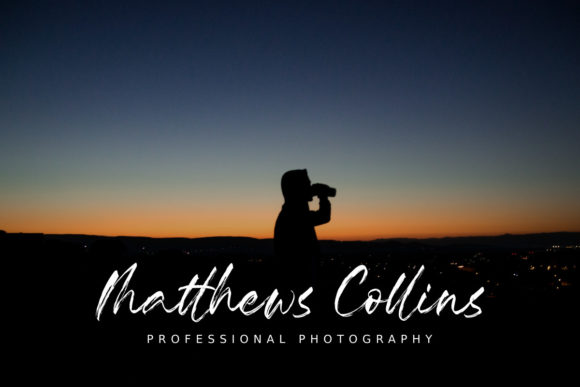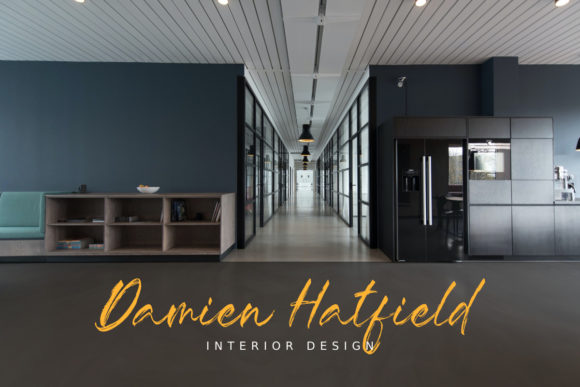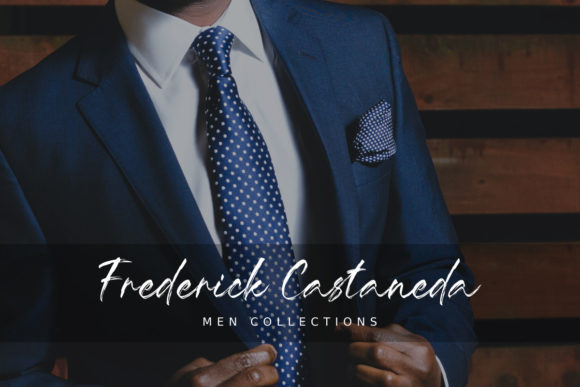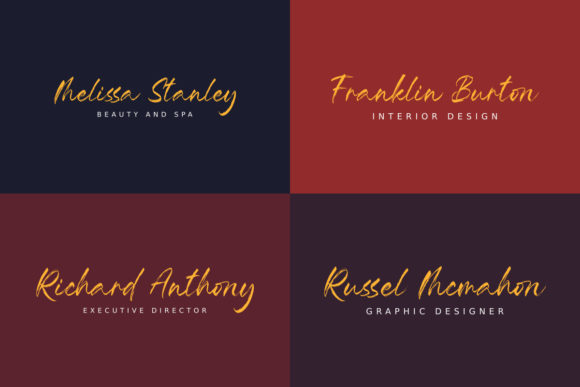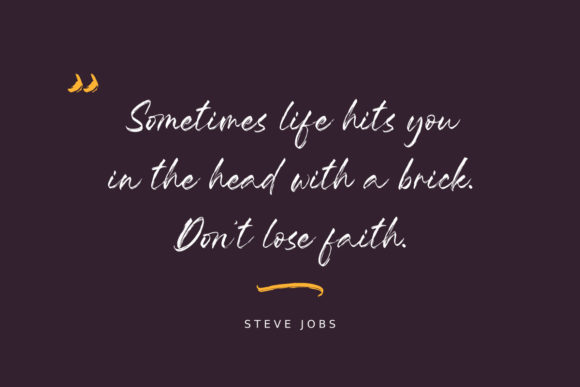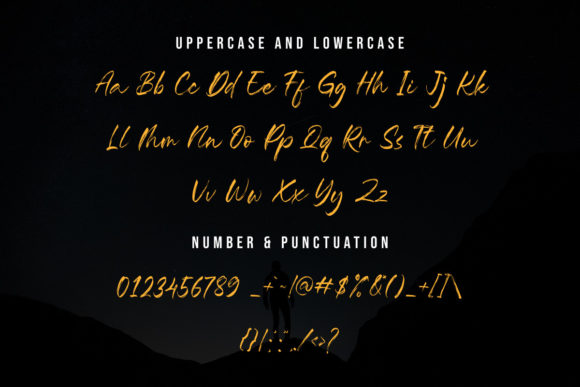
Introduction to Castillion Font
Castillion is a delicate and lovely brushed script font.
It is defined by smooth curves and is perfect for fashion branding or editorial designs Add it confidently to your projects, and you will love the results.
Key Features of Castillion Font
Why Choose Castillion Font?
Castillion Font offers exceptional quality and versatility, making it a valuable addition to your design toolkit. Whether you’re creating for personal projects or commercial use, Castillion Font delivers professional results.